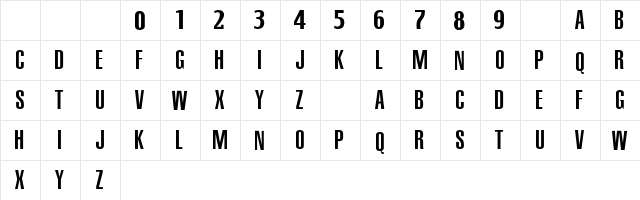
NBA Mavericks Alternate Regular
Design Context for NBA Mavericks Alternate Typeface
NBA Mavericks Alternate is a composed and adaptable typeface that performs quietly and consistently across a wide range of design contexts.
Pro Tip: Pair NBA Mavericks Alternate with a font of contrasting weight or personality to build a more expressive typographic hierarchy.